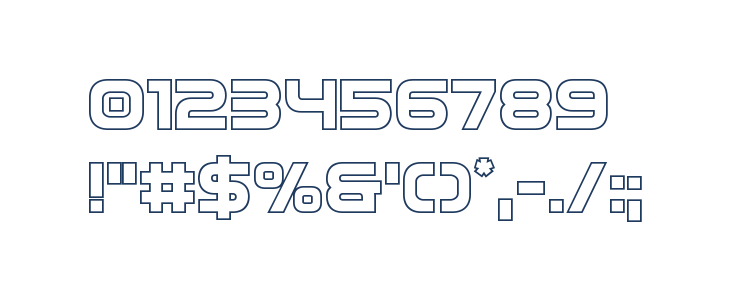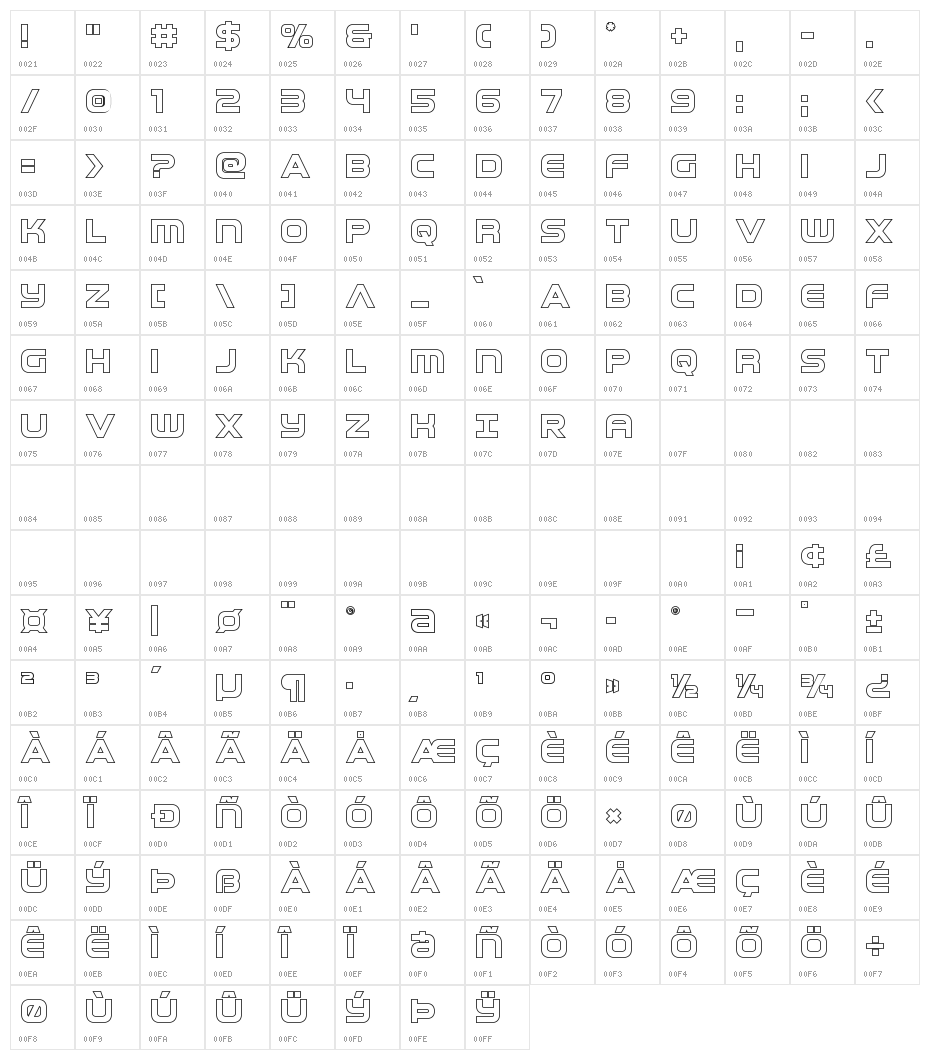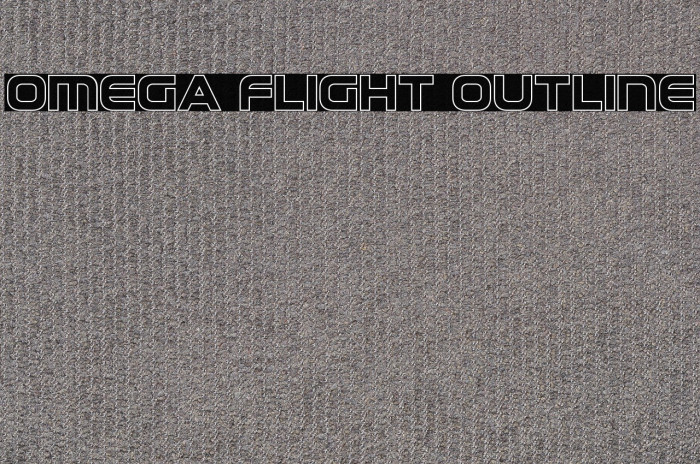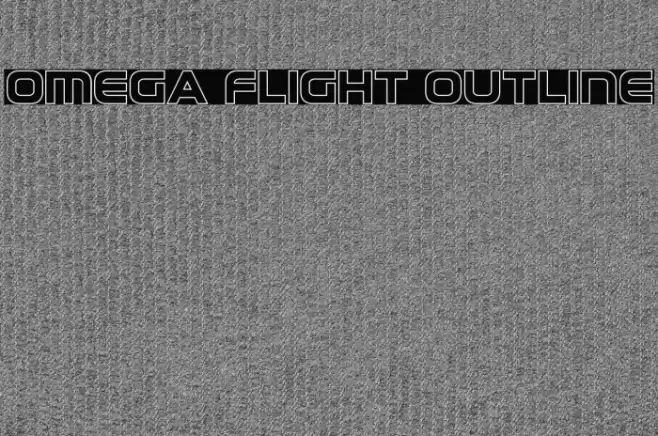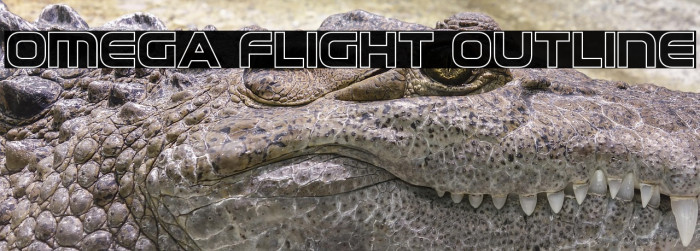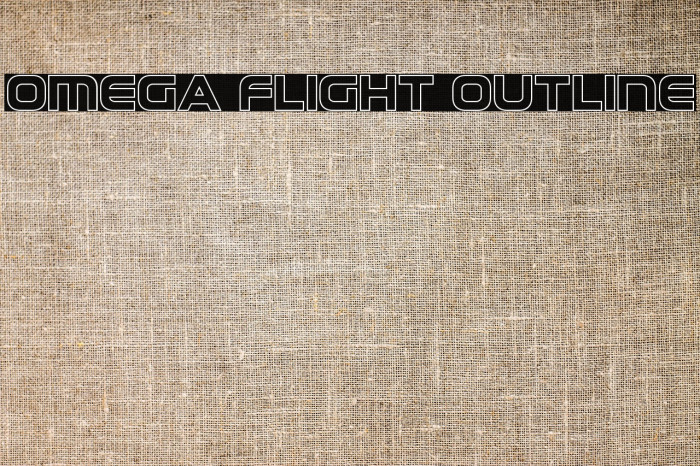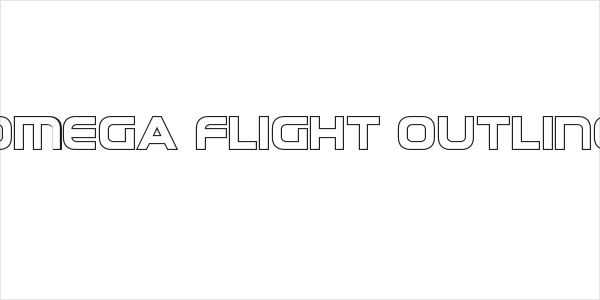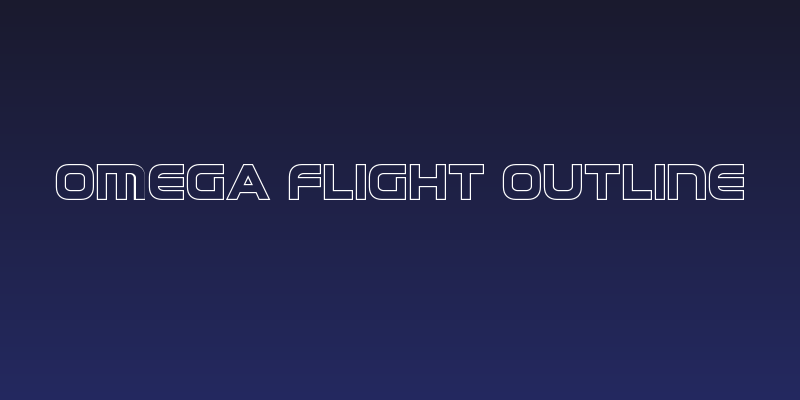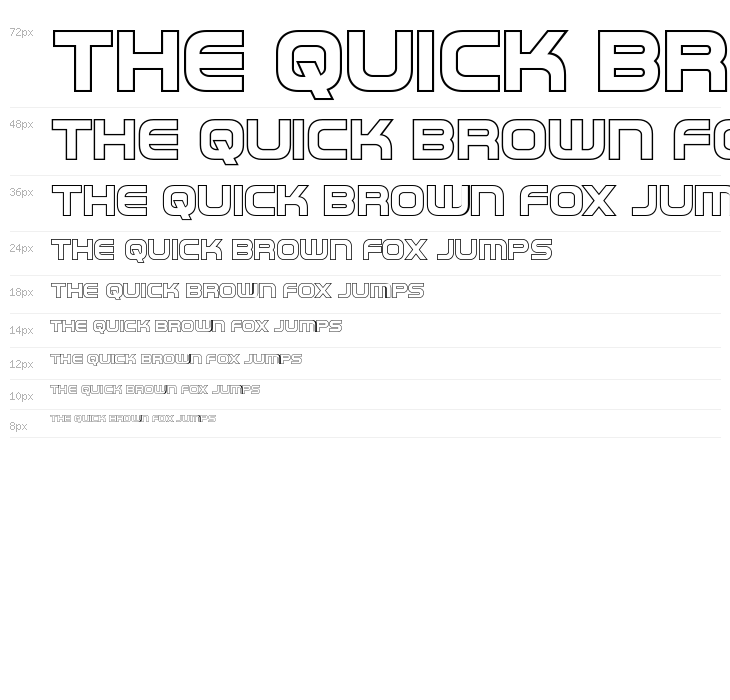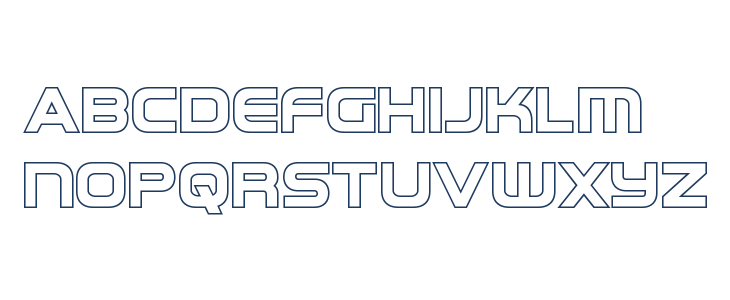
Omega Flight Outline Font
Omega Flight Outline Description
This font features a bold, futuristic outline style with geometric shapes and clean lines. The uppercase and lowercase letters maintain a consistent width, creating a uniform appearance. The characters are designed with a modern aesthetic, emphasizing sharp angles and straight edges. The numerals and special characters follow the same design principles, ensuring a cohesive look across all elements. This font's outline style gives it a unique, airy feel, making it stand out in various design contexts.
| Proposed Projects | Ideal for sci-fi themed projects, technology branding, posters, and digital artwork. |